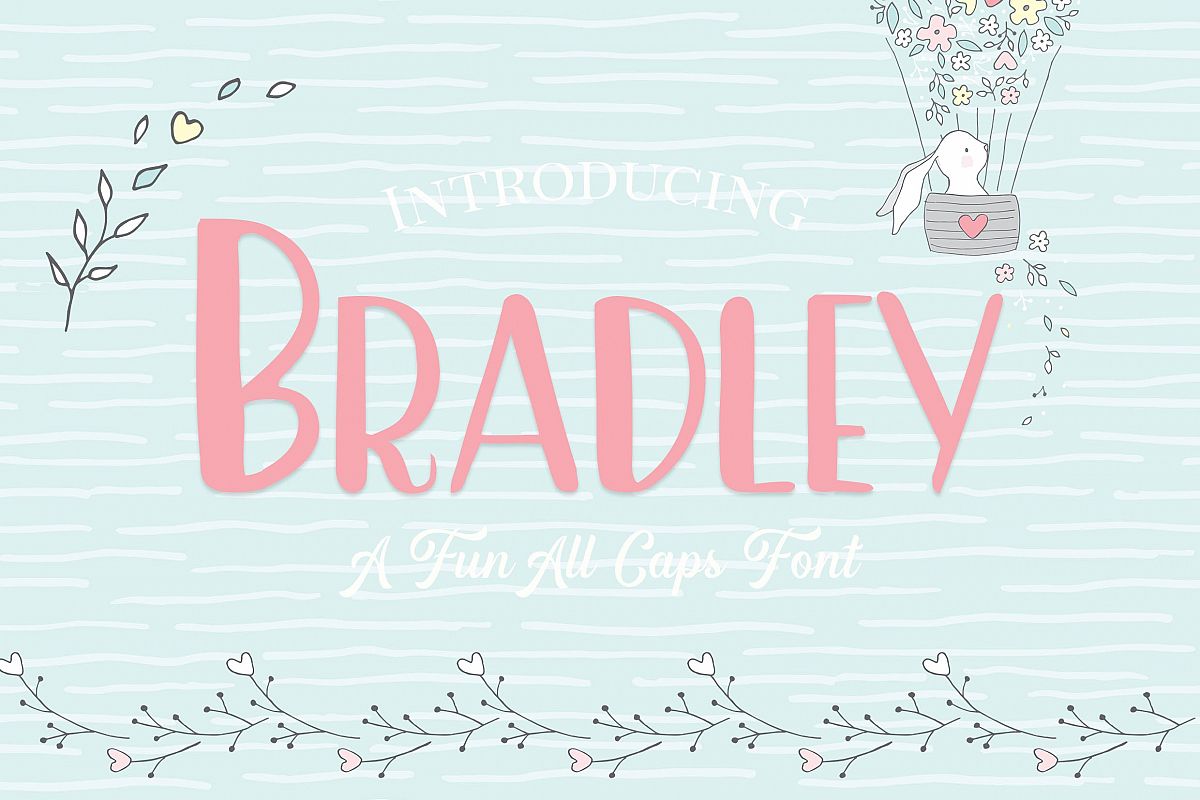
Bradley- A Fun Caps Font
Bradley is a fun all caps font.
European Languages covered: Albanian, Dutch, Danish, Estonian,
Finnish, French, German, Icelandic, Italian, Norwegan, Portugeuse,
Spanish, Swedish, Faroese, Irish Galic, Scottish Galic, Manx Galic,
Slovenian.